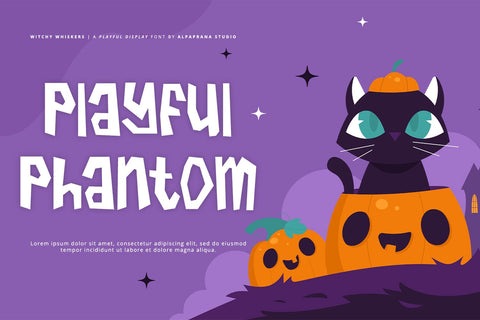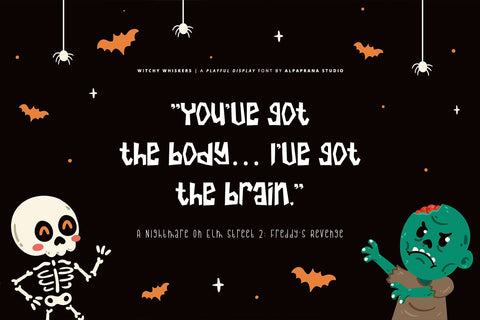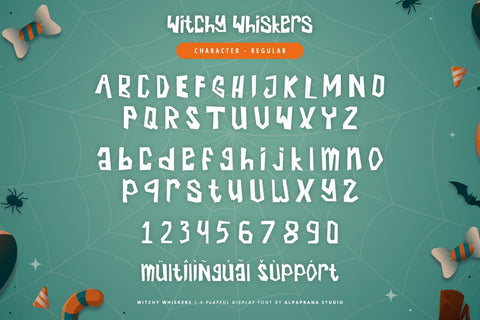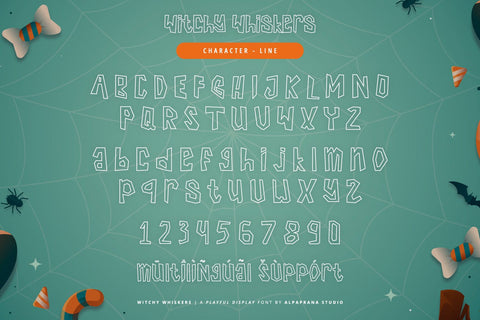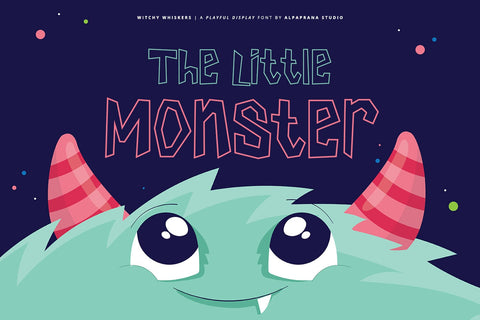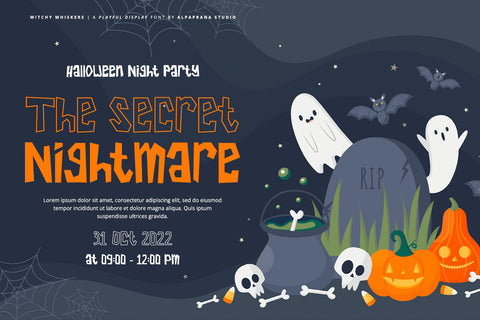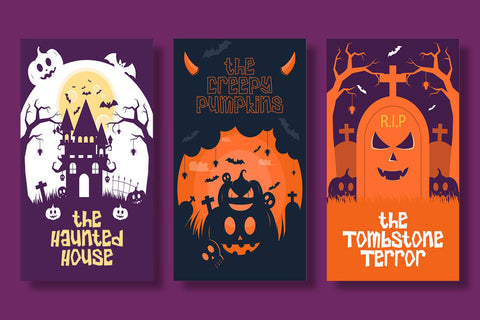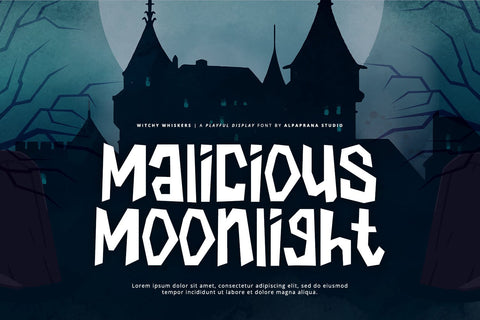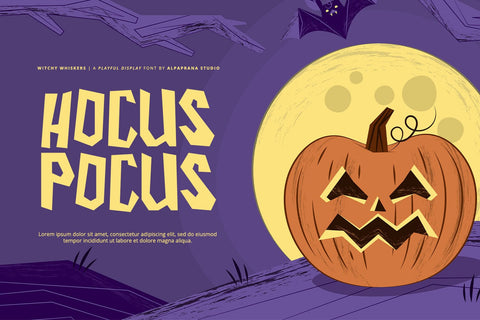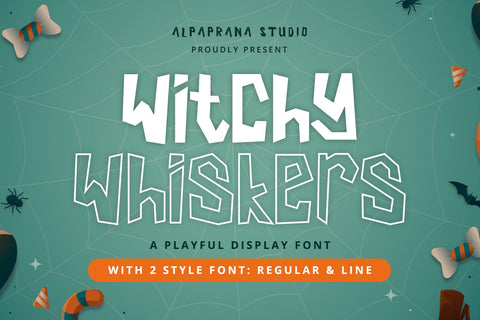
Witchy Whiskers - Playful Font
Witchy Whiskers is a stunning display font with playful feels. It will be perfectly used for Branding, Logo Design, Lettering, Logotype, Clothing, Poster, magazine, packaging, posters, shopping bags, t-shirts, book covers, photography, special events and other design project.